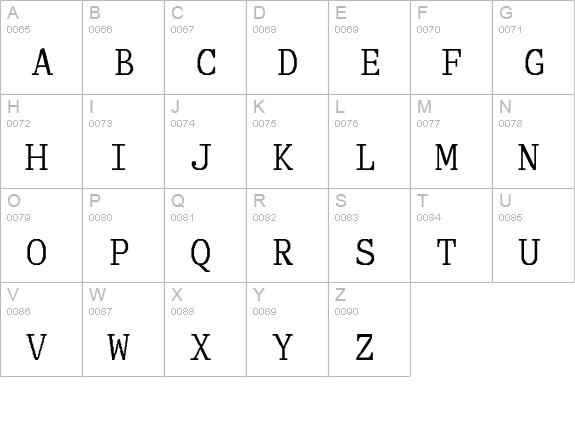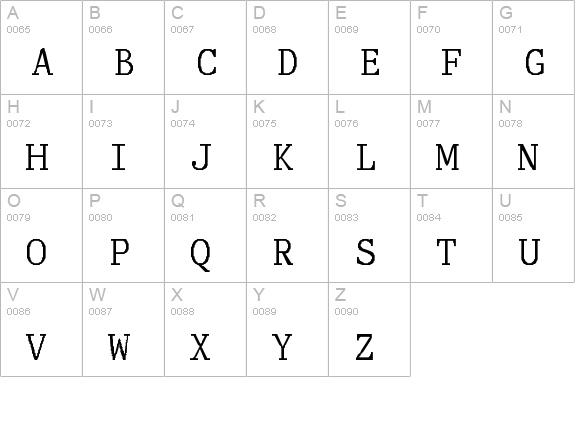
Adjutant-Normal Font Details
Adjutant-Normal is the standard, neutral variant in the Adjutant typeface family \xE2\x80\x94 well suited to general body text, paragraphs, and standard typographic work.
Adjutant-Normal font is a versatile and modern typeface that exudes professionalism and elegance. With its clean lines, balanced proportions, and subtle curves, Adjutant-Normal is perfect for a wide range of design projects. Whether you're creating a sleek corporate presentation, a stylish website, or a sophisticated print layout, this font is sure to make a statement. What sets Adjutant-Normal apart is not only its exceptional design but also the fact that it is available for free. Yes, you read that right – this high-quality font can be downloaded at no cost on FontsMarket.com. So whether you're a seasoned designer looking to add a new font to your collection or a beginner exploring typography for the first time, Adjutant-Normal is a fantastic choice that won't break the bank. Don't miss out on the opportunity to enhance your projects with the elegance and versatility of Adjutant-Normal font. Download it for free today at FontsMarket.com and see the difference it can make in your designs.